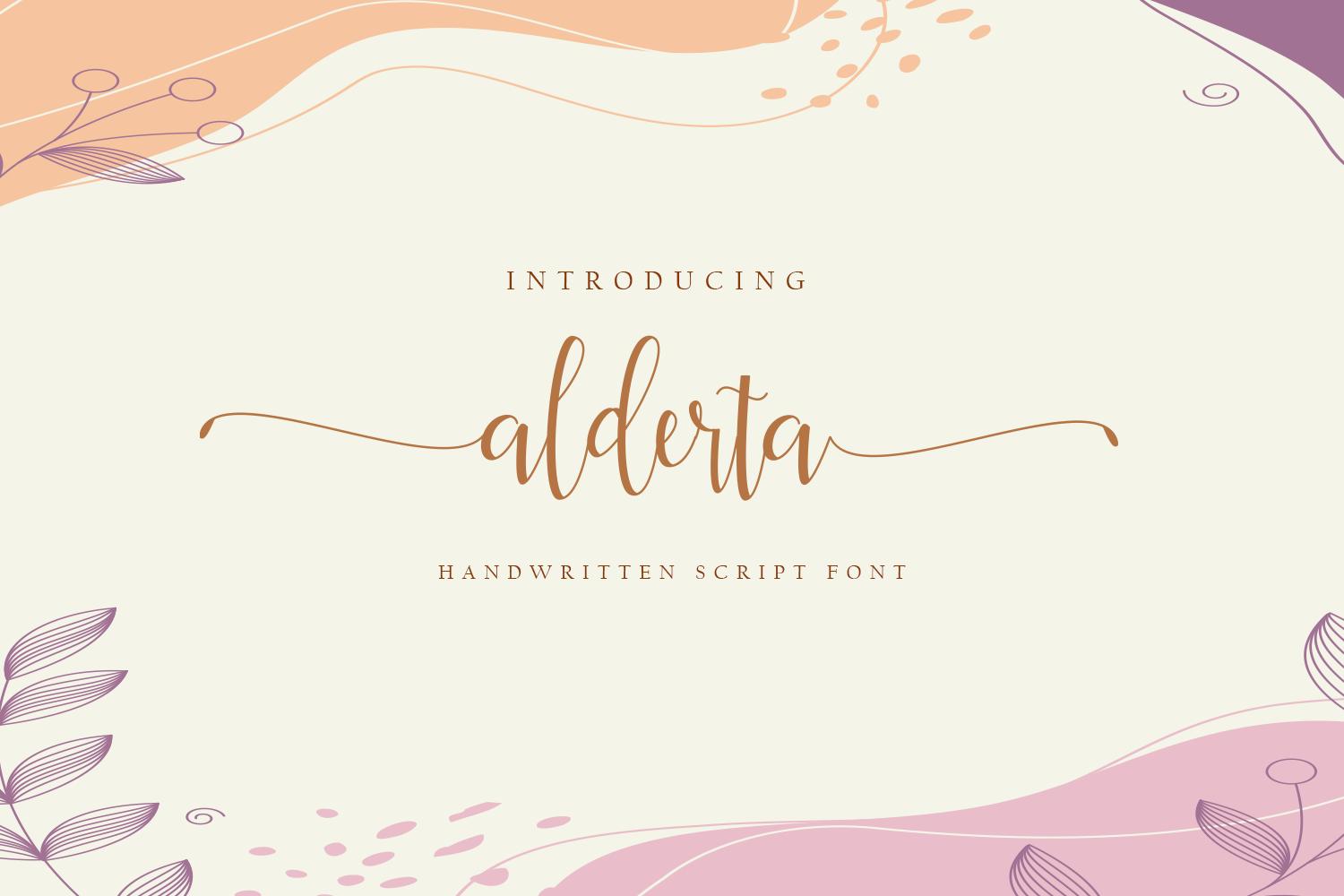
Alderta Font Description
Alderta is a delicate and elegant handwritten font. Its distinct and well rounded letters make this font a masterpiece. Fall in love with its incredibly versatile style and use it to create spectacular designs! This font is PUA encoded which means you can access all of the glyphs and swashes with ease!